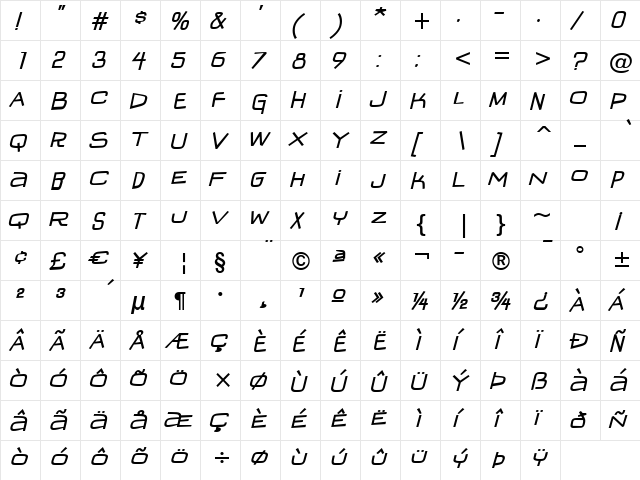
IguanaLover BTN BoldOblique
Design Context for IguanaLover BTN Typeface
IguanaLover BTN takes a measured approach to typography — its balanced proportions and neutral character make it a reliable workhorse for both digital and print work. The dynamic lean of this cut emphasises speed and emphasis in any layout. Its bold stroke weight gives it real presence on the page.
Pro Tip: Use IguanaLover BTN for emphasis, pull quotes, and subheadings where its slanted energy can add rhythm to the layout.